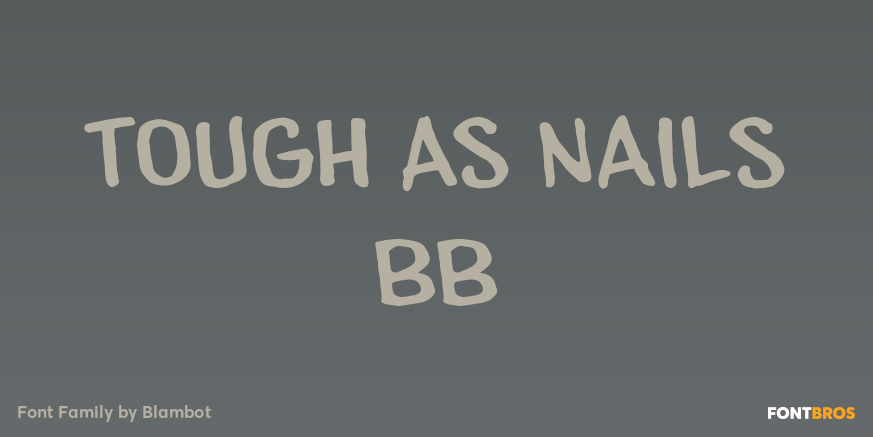
Tough As Nails BB
About Tough As Nails BB
Tough As Nails BB is a pulp comic book font with a 5 o?clock shadow and a cold, steel .45. The opentype version has autoligatures to swap out duplicate letters for a more organic look. Includes Regular, Bold, Italic and BoldItalic.